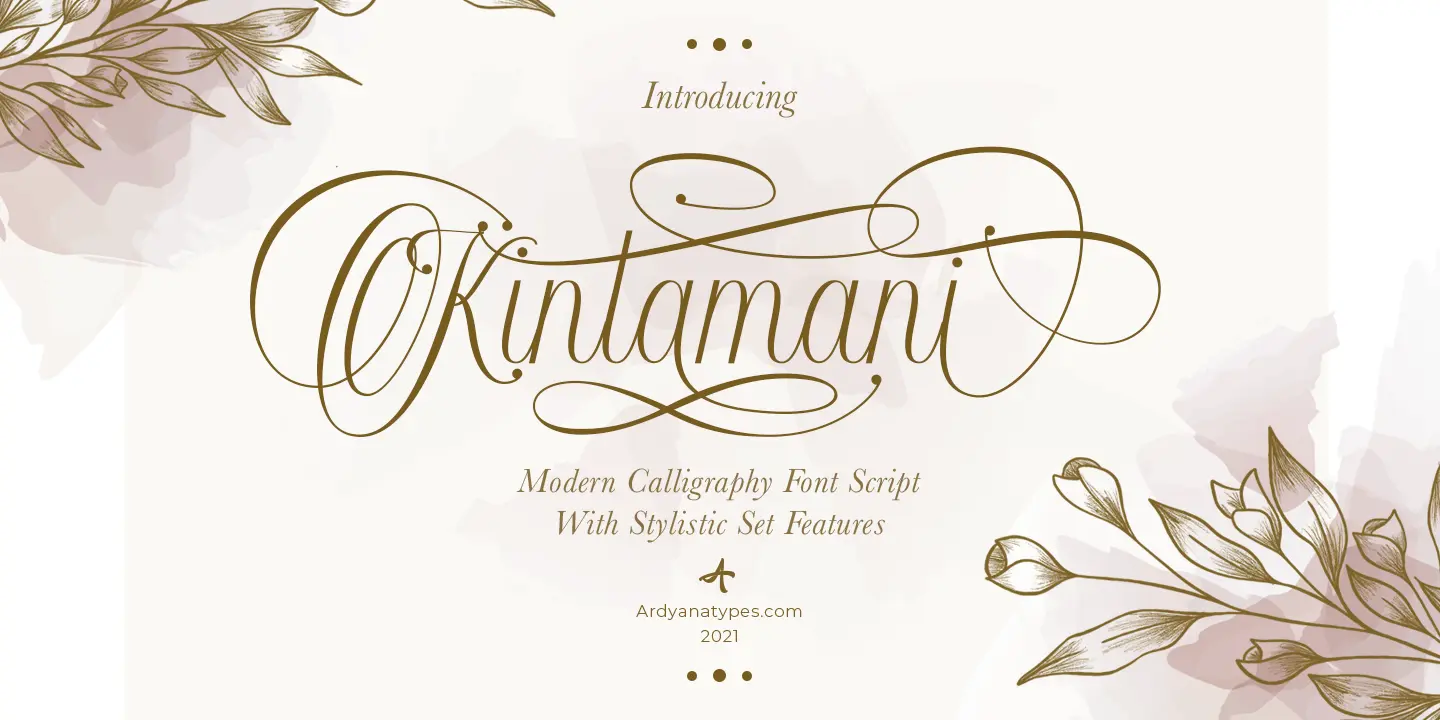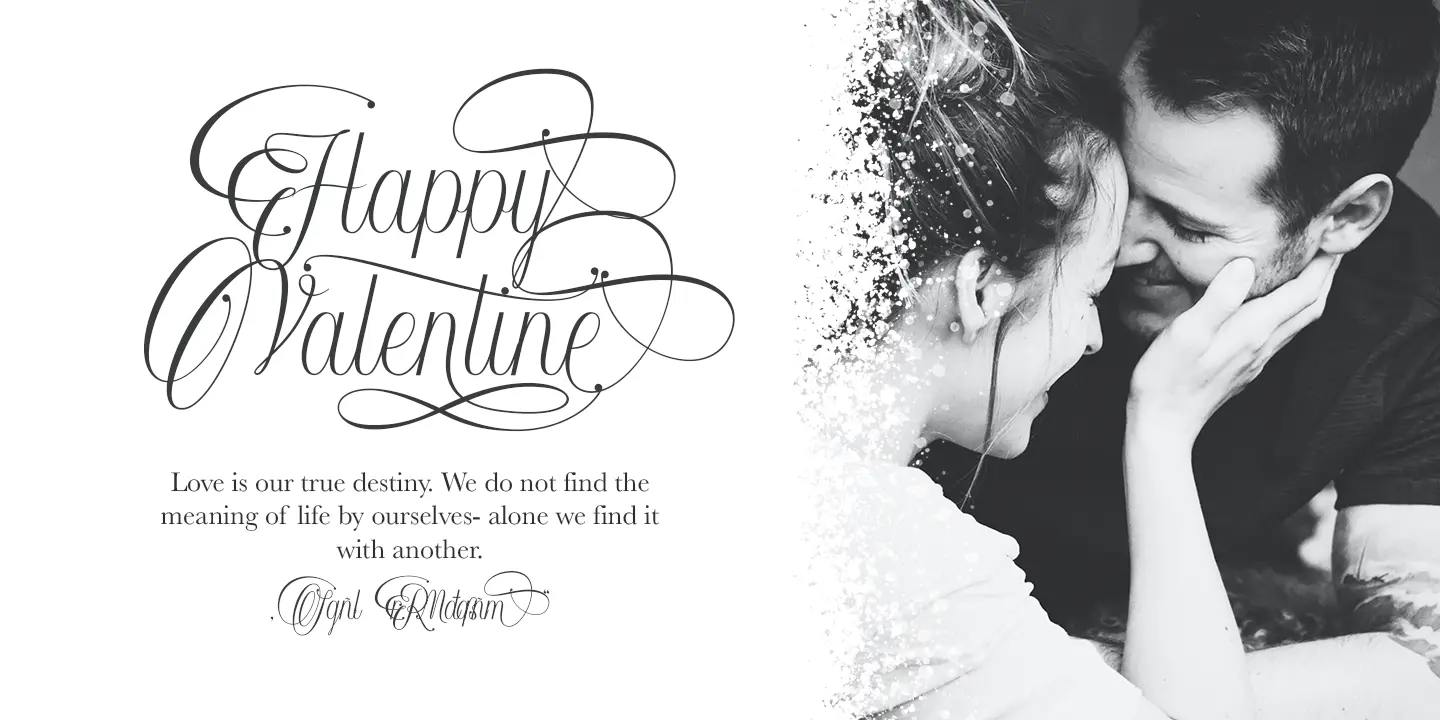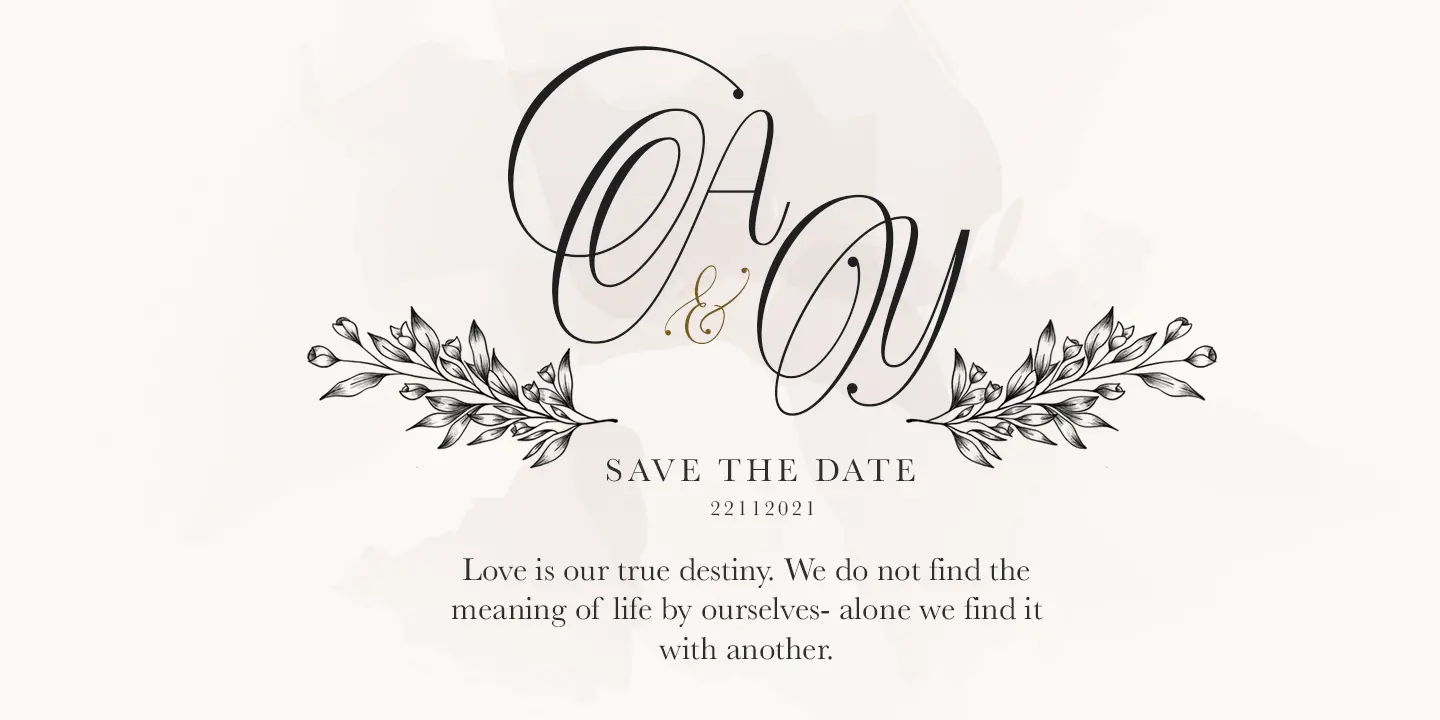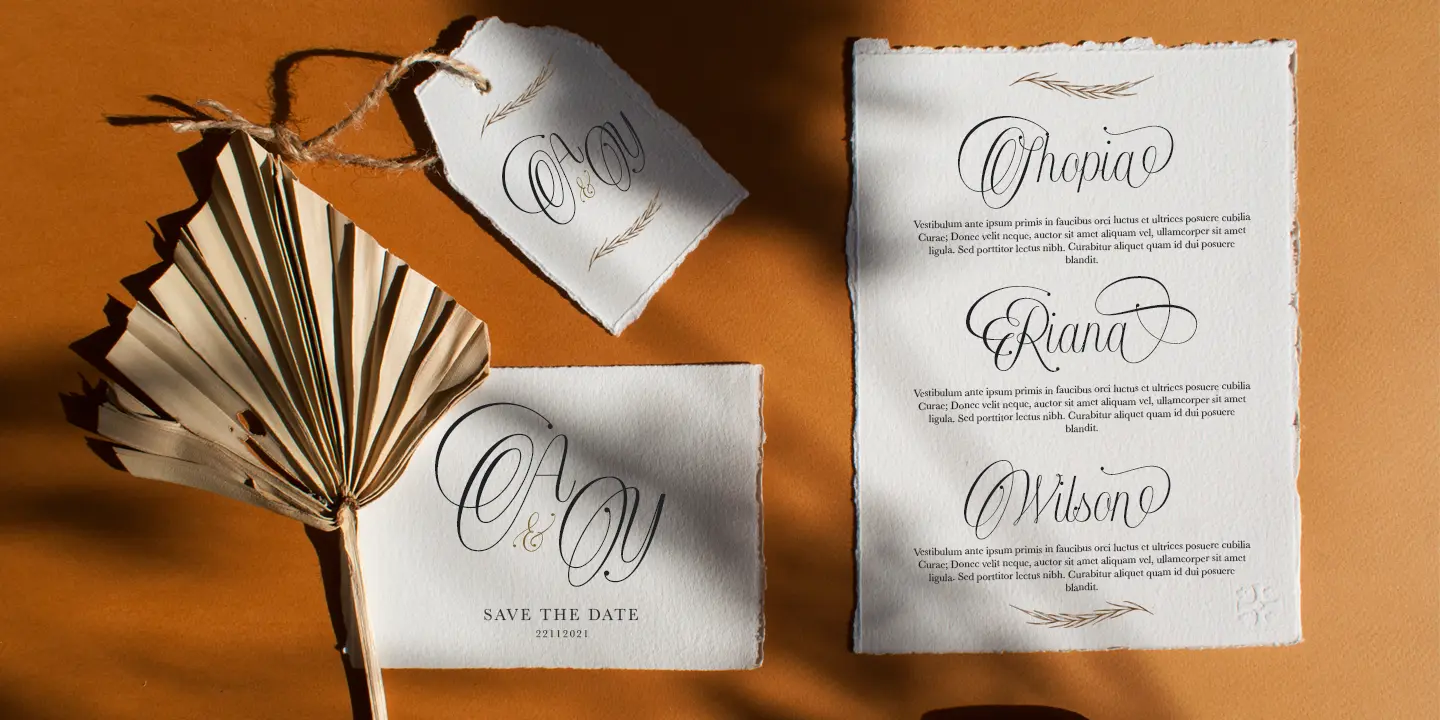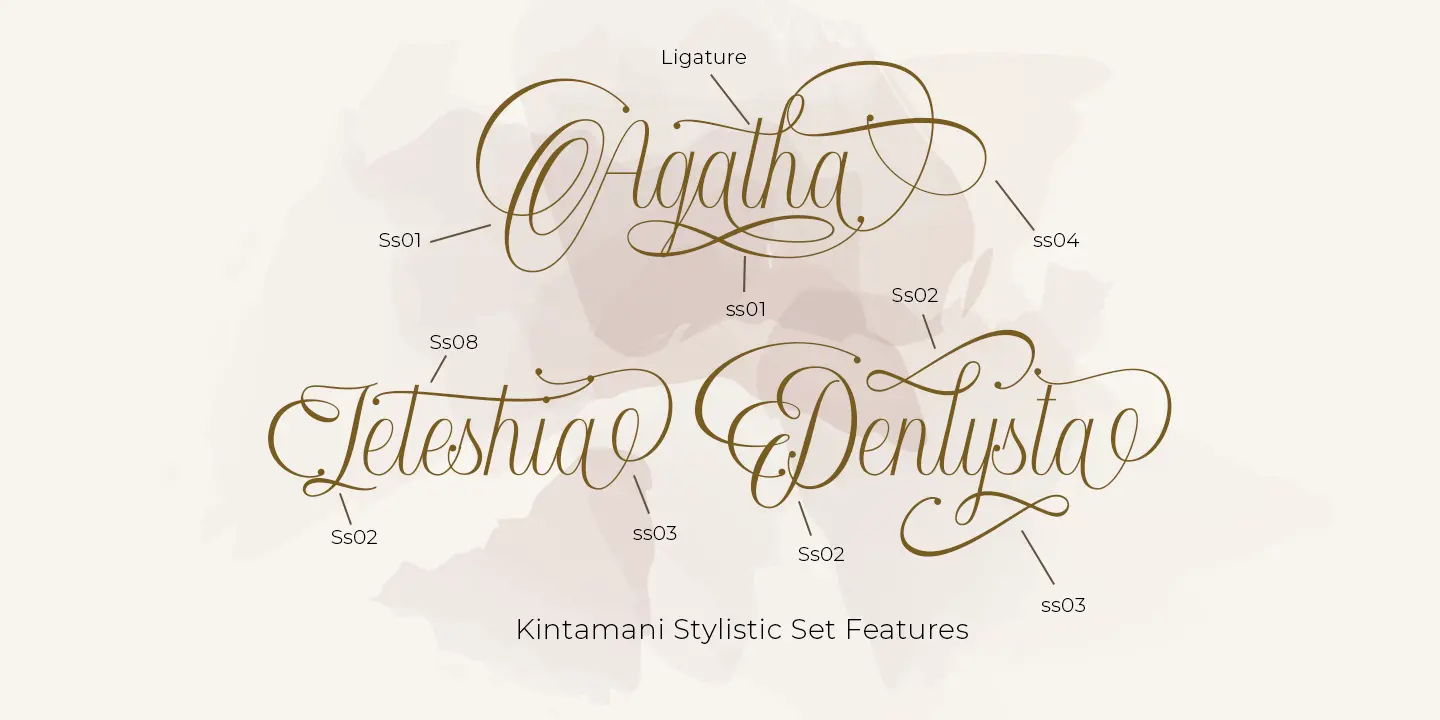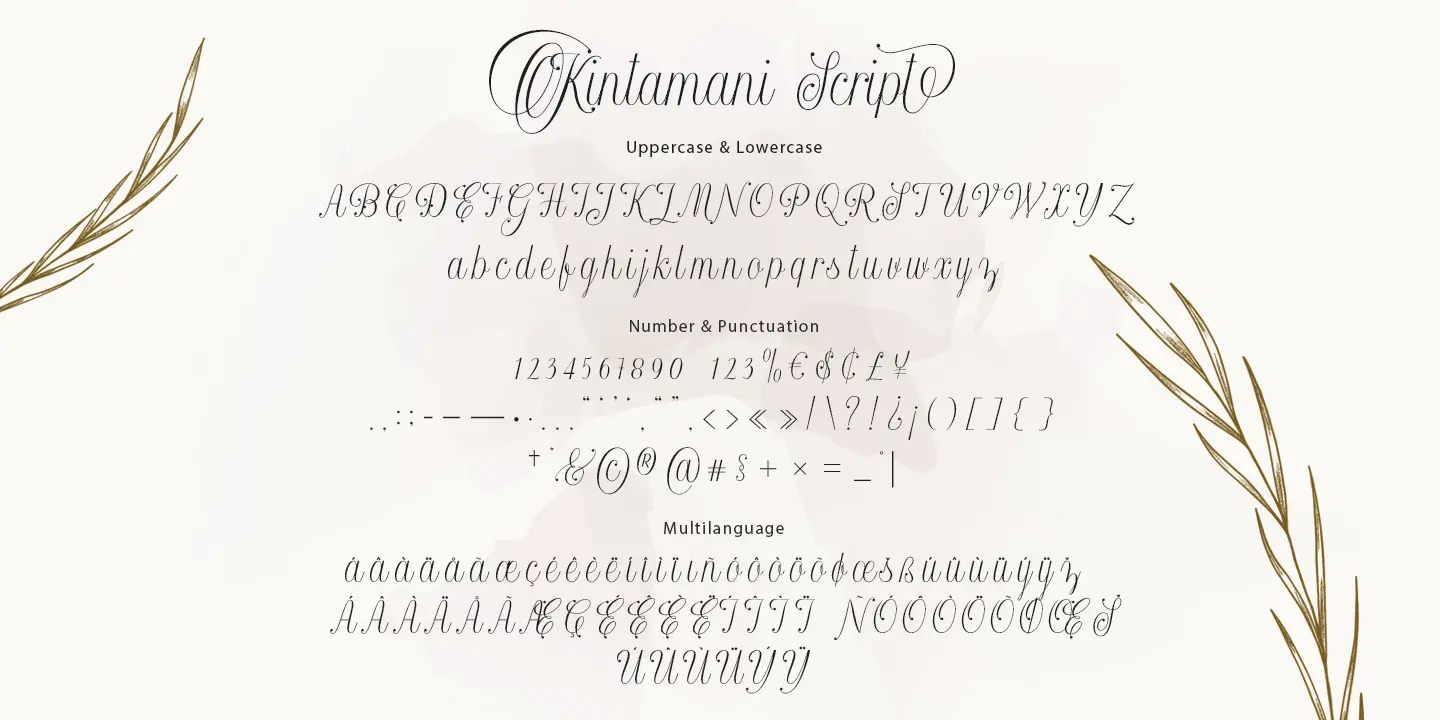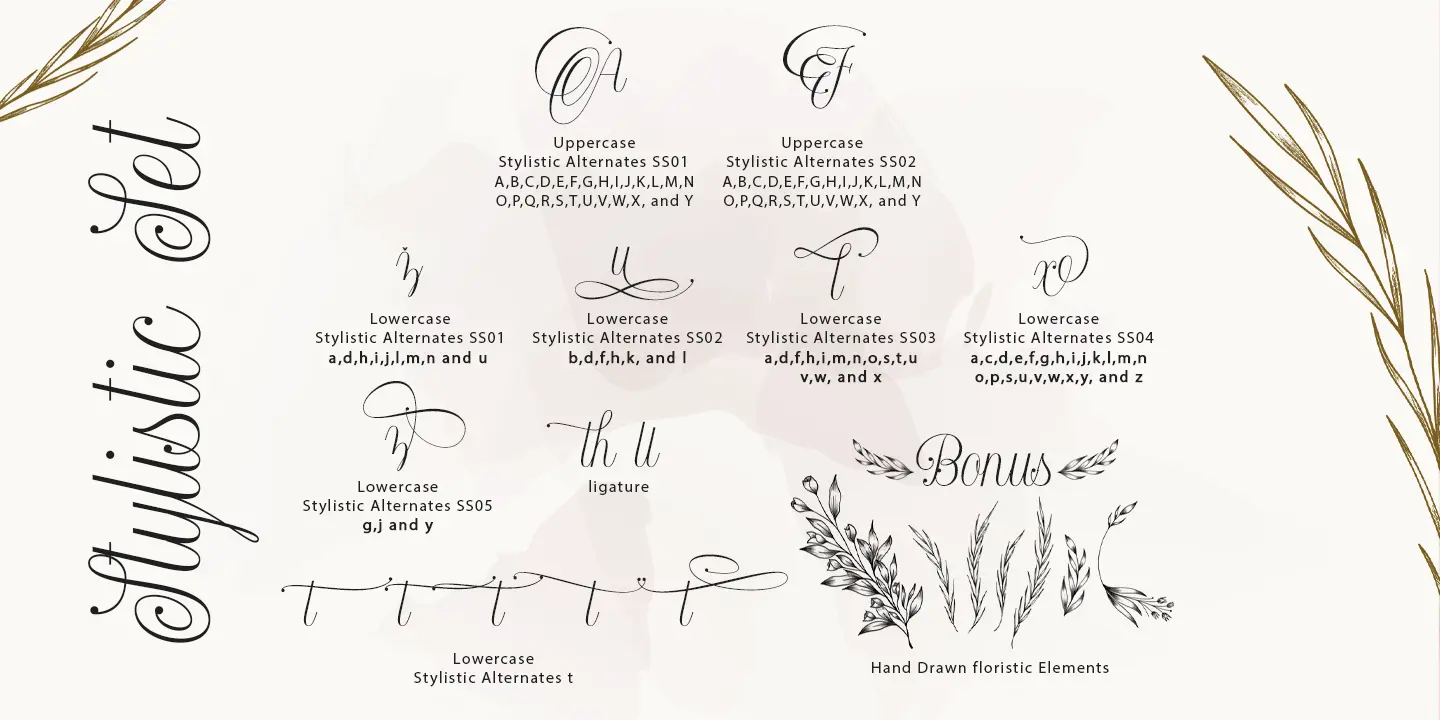
KintamaniScript
Introducing a new modern calligraphy font called Kintamani Script. Kintamani Script is made as natural as possible to create a beautiful and beautiful impression, this script is made for those who need a beautiful and graceful style so that it makes their design look more luxurious, this will be very suitable for use as wedding invitations, branding, fashion, titles books, business cards, and many more that can be combined with this Kintamani script.
Kintamani Scrip has many stylistic features that can be used so that it gives a different and more modern impression than the standard and also has a bonus flower hand drawing to complement and beautify the design. The Kintamani script includes a complete set of all the basic characters of upper and lower case, numbers and punctuation, and also has alternative ligatures and styles that can exquisitely give a natural impression.
This Kintamani script font is available for All fonts available for Western European, Central European and Southeast European Languages. You can define your language typing character in the text box below.